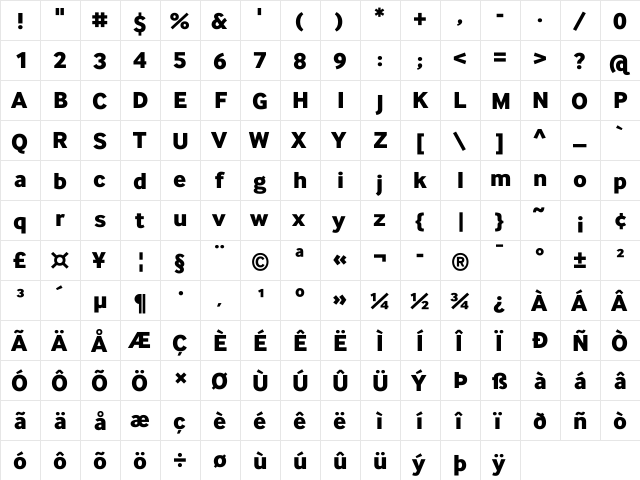
InterFace DaMa Lt Bold Font Preview
InterFace DaMa Lt Bold
InterFace DaMa Lt Bold Font Details
Design Context for InterFace DaMa Lt Typeface
InterFace DaMa Lt takes a measured approach to typography — its balanced proportions and neutral character make it a reliable workhorse for both digital and print work. The heavy weight commands attention and anchors typographic hierarchies.